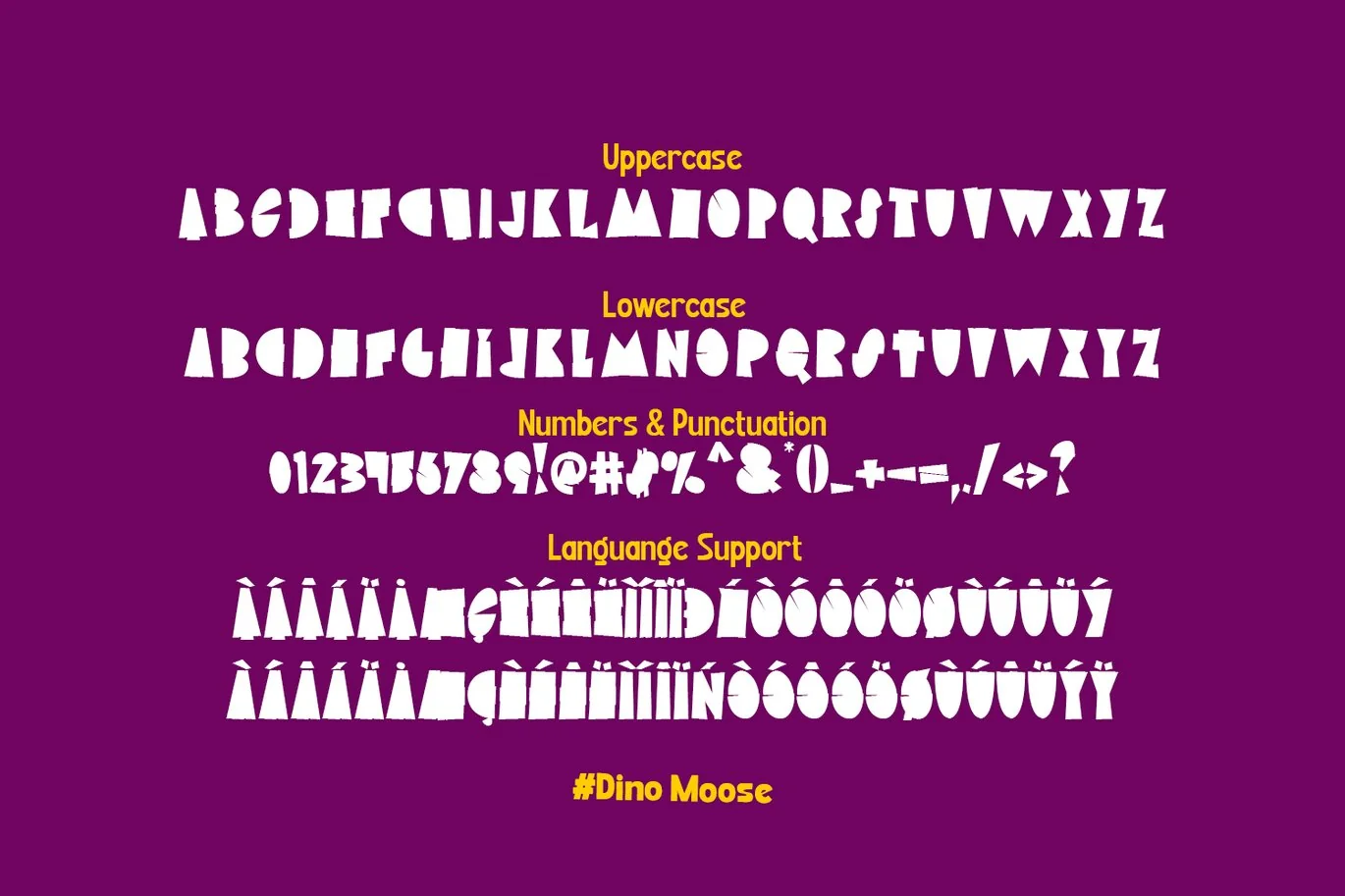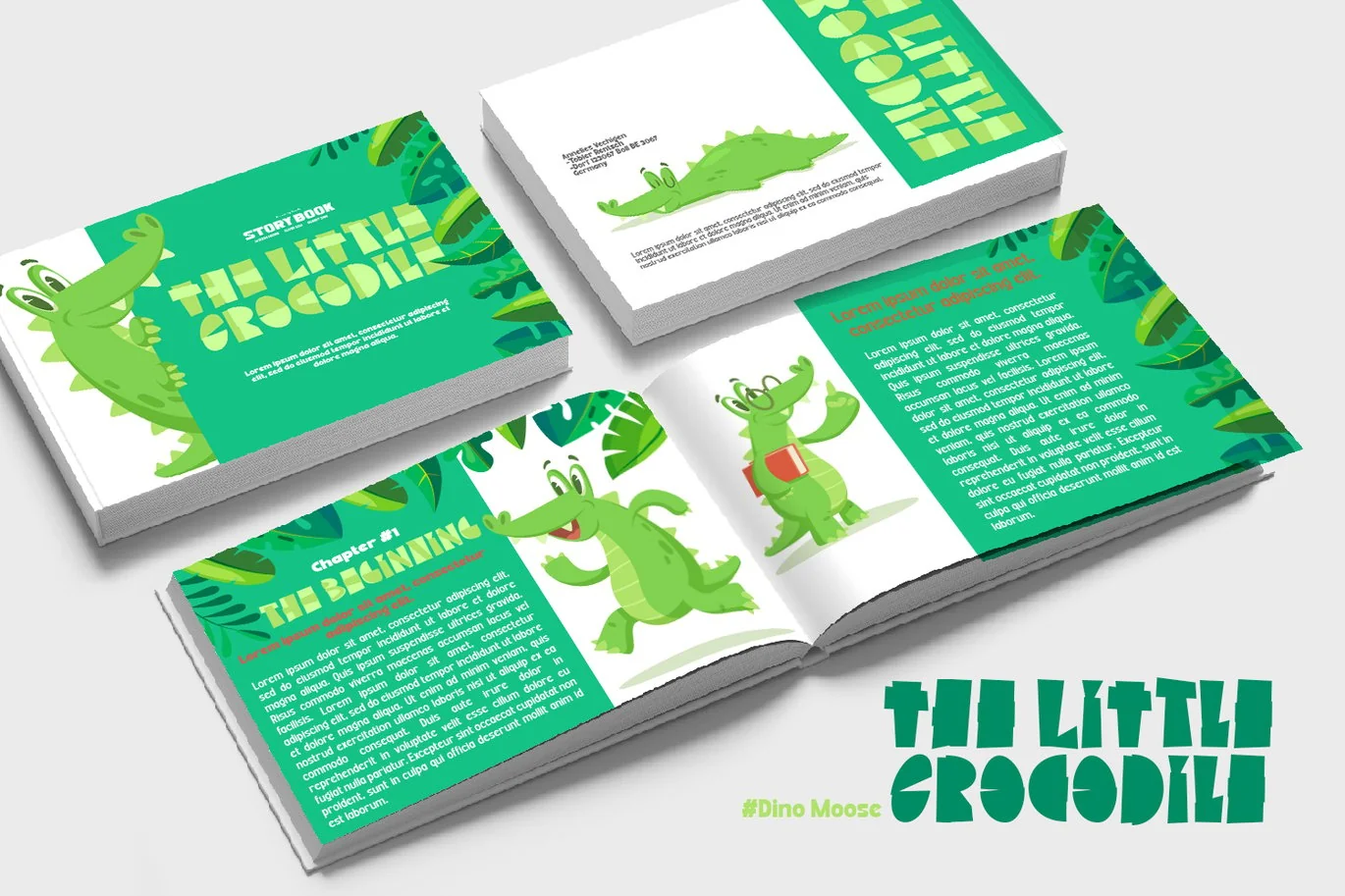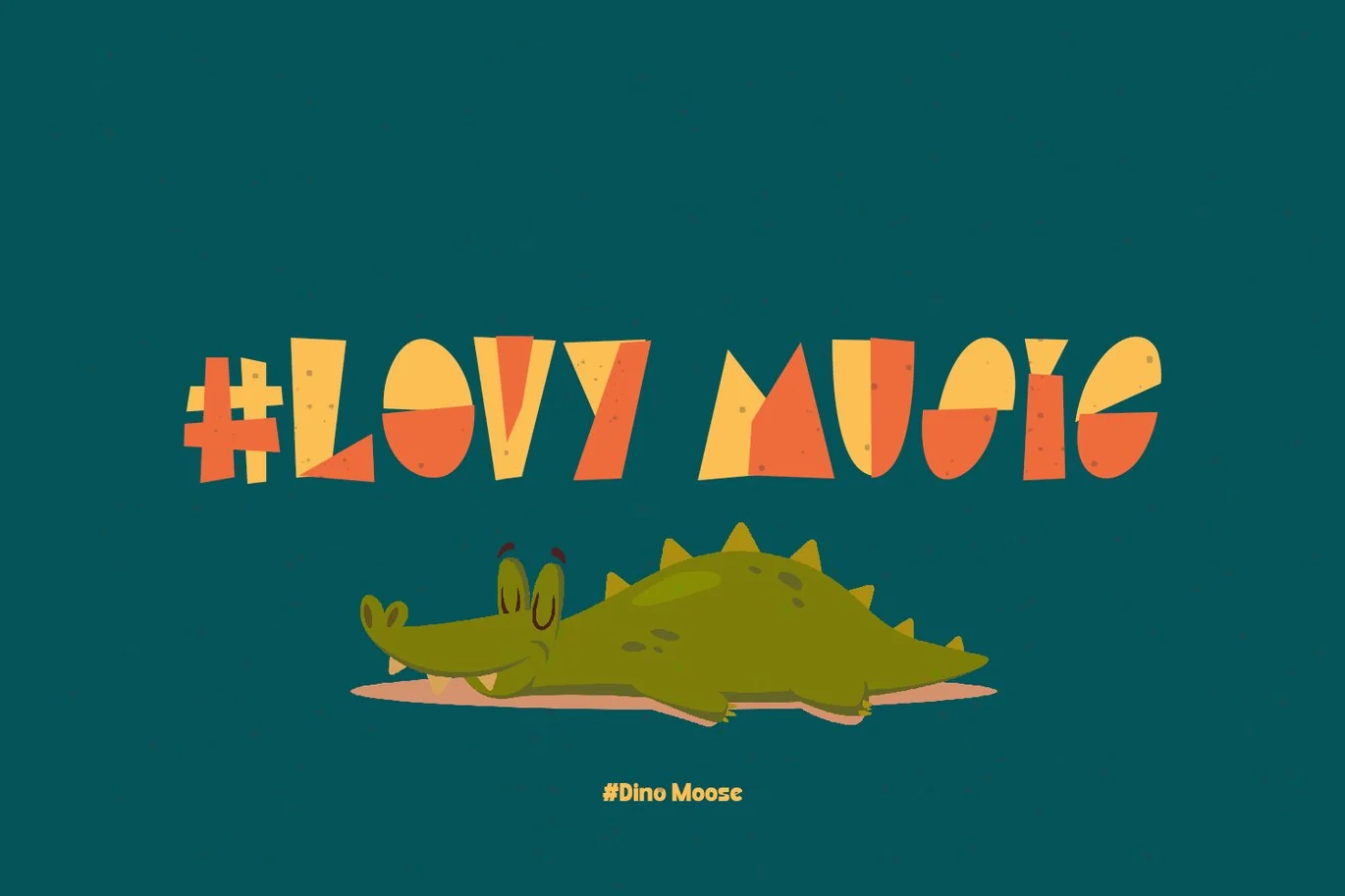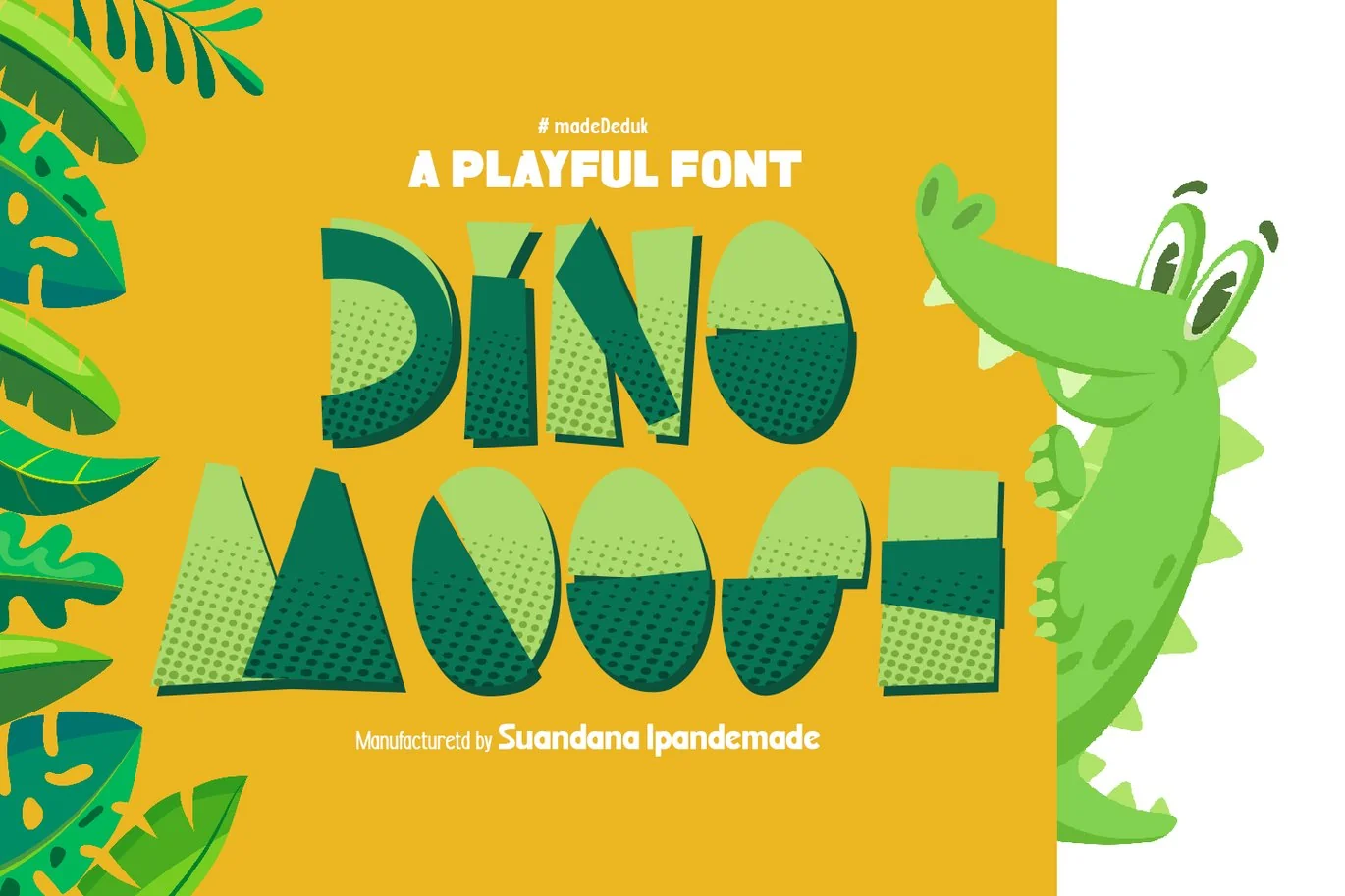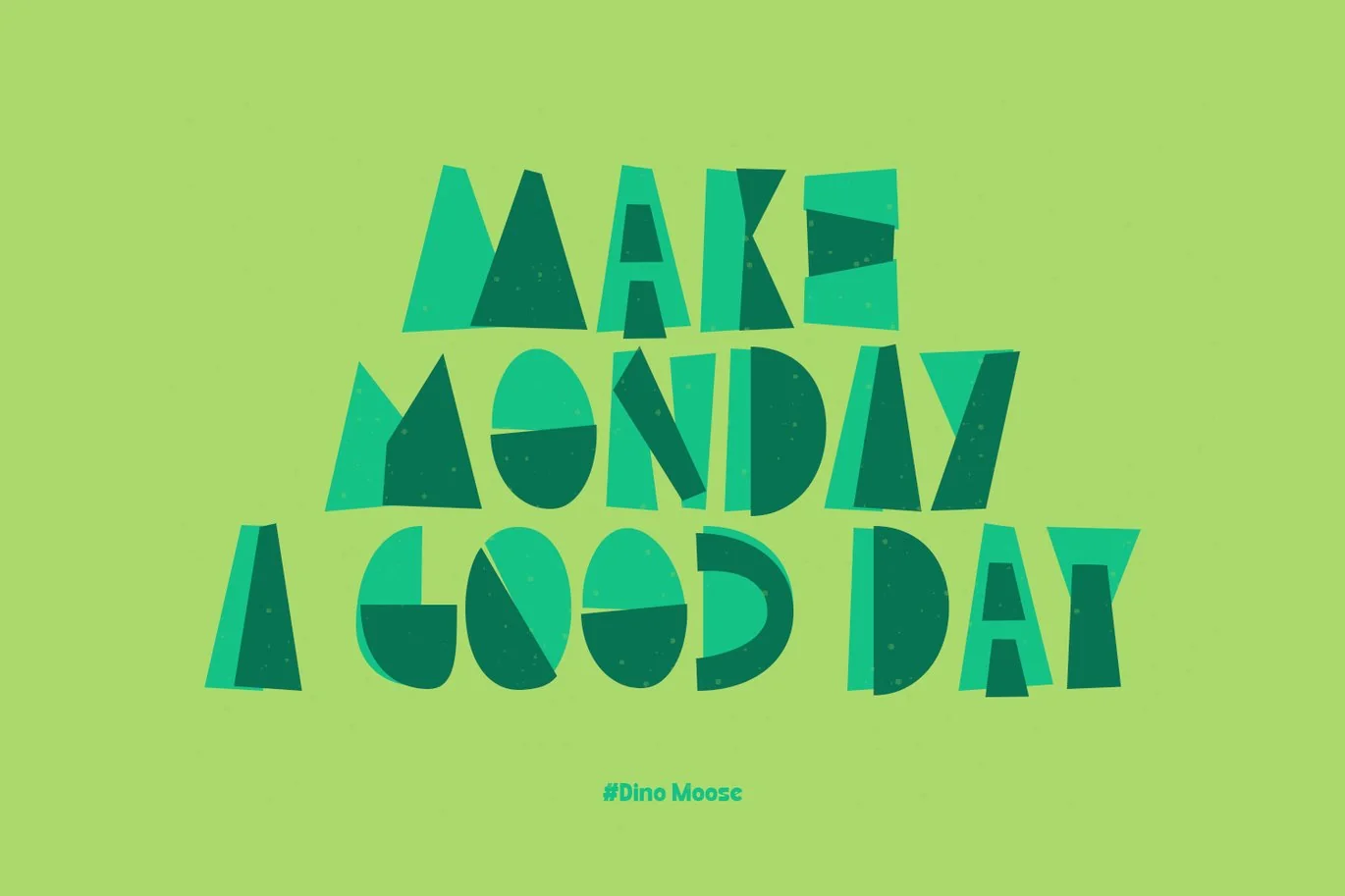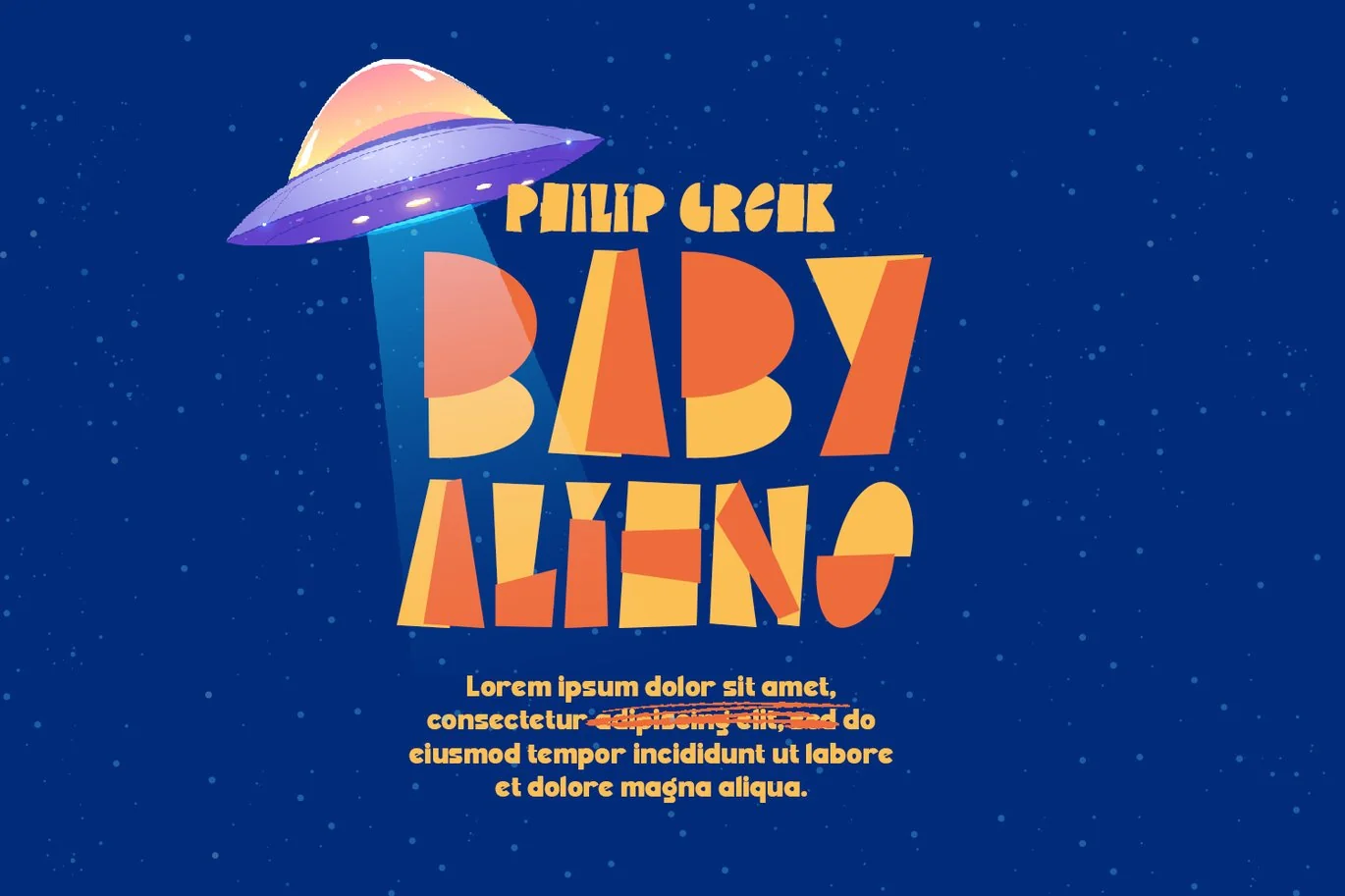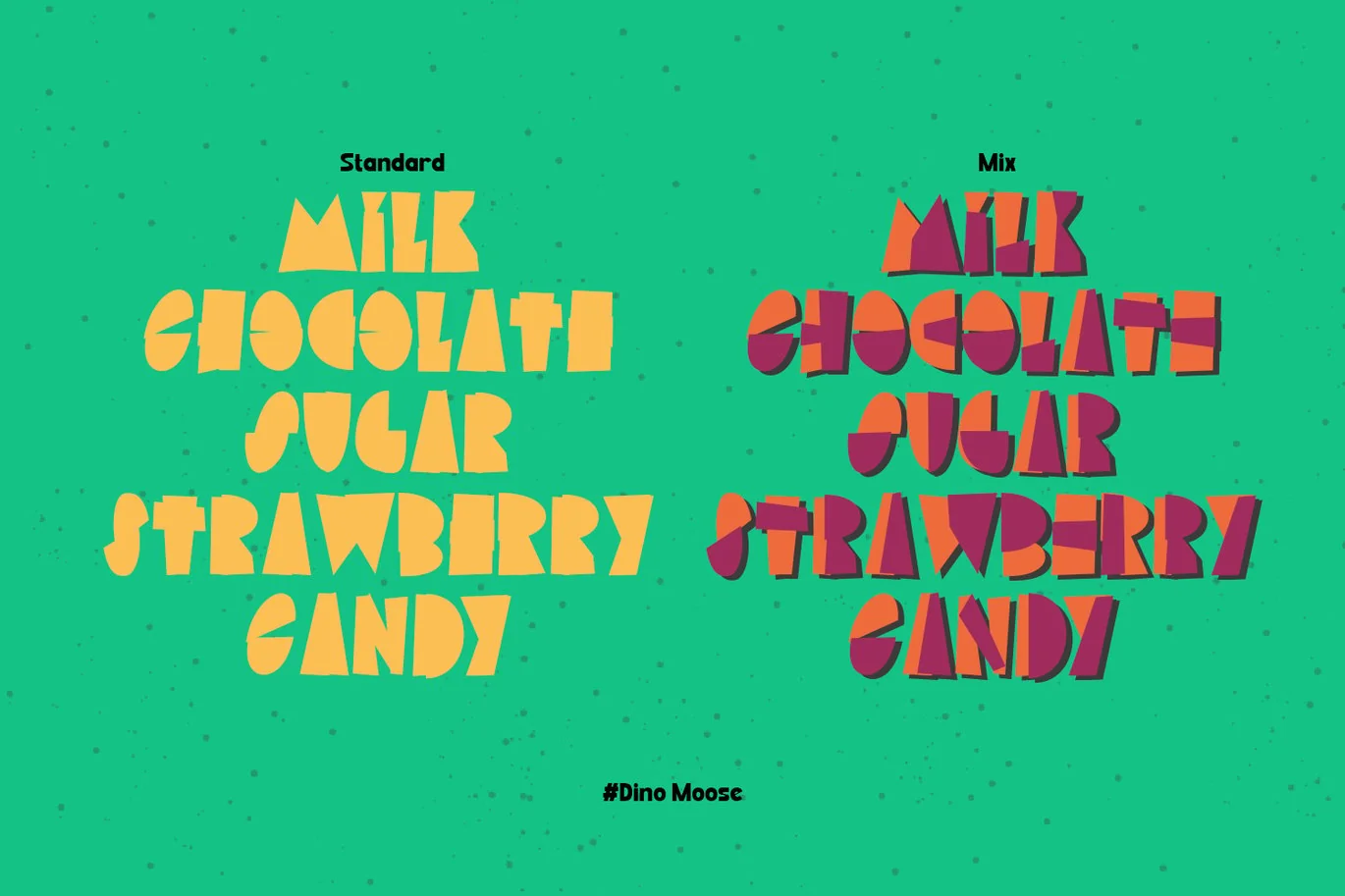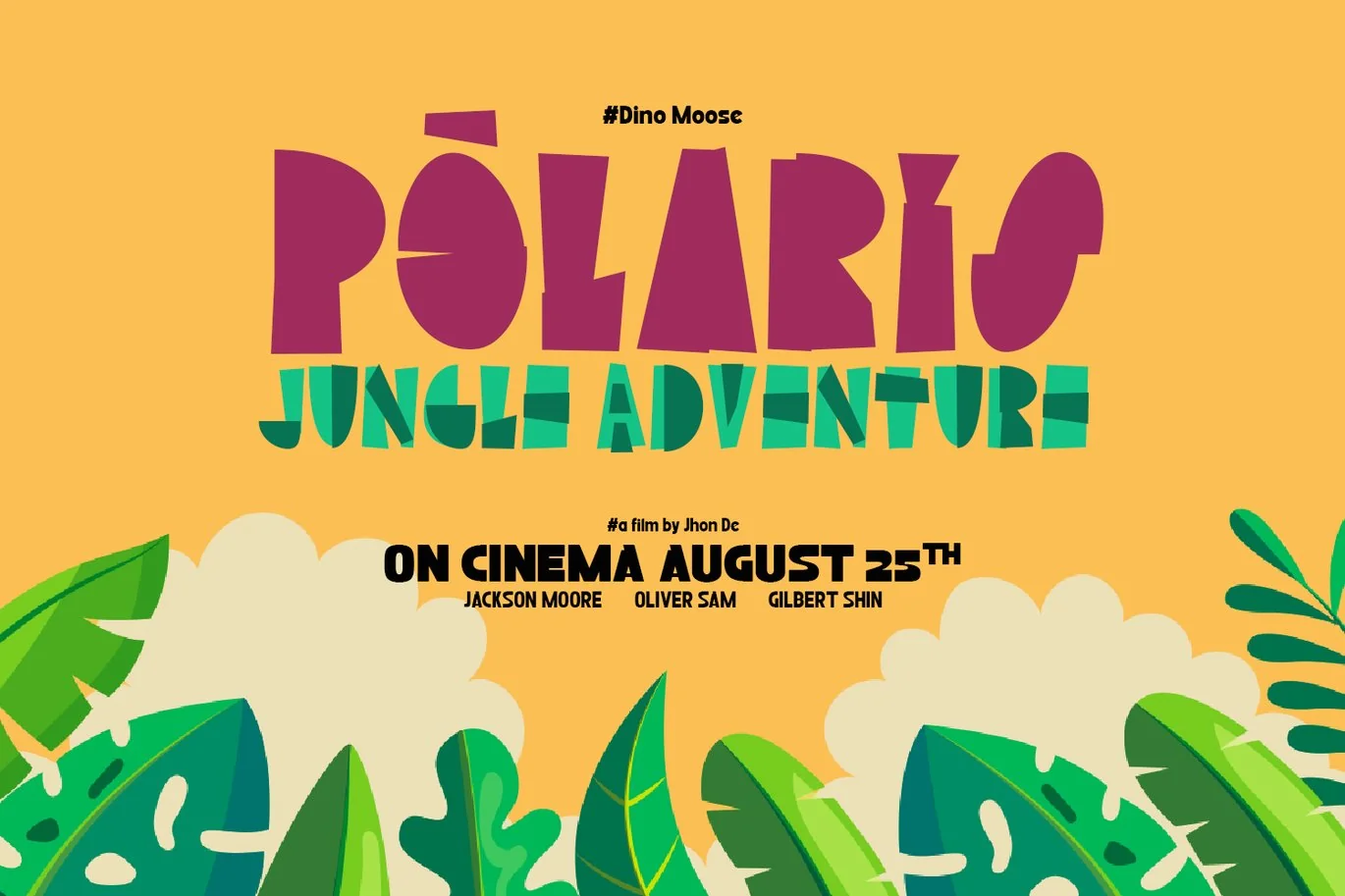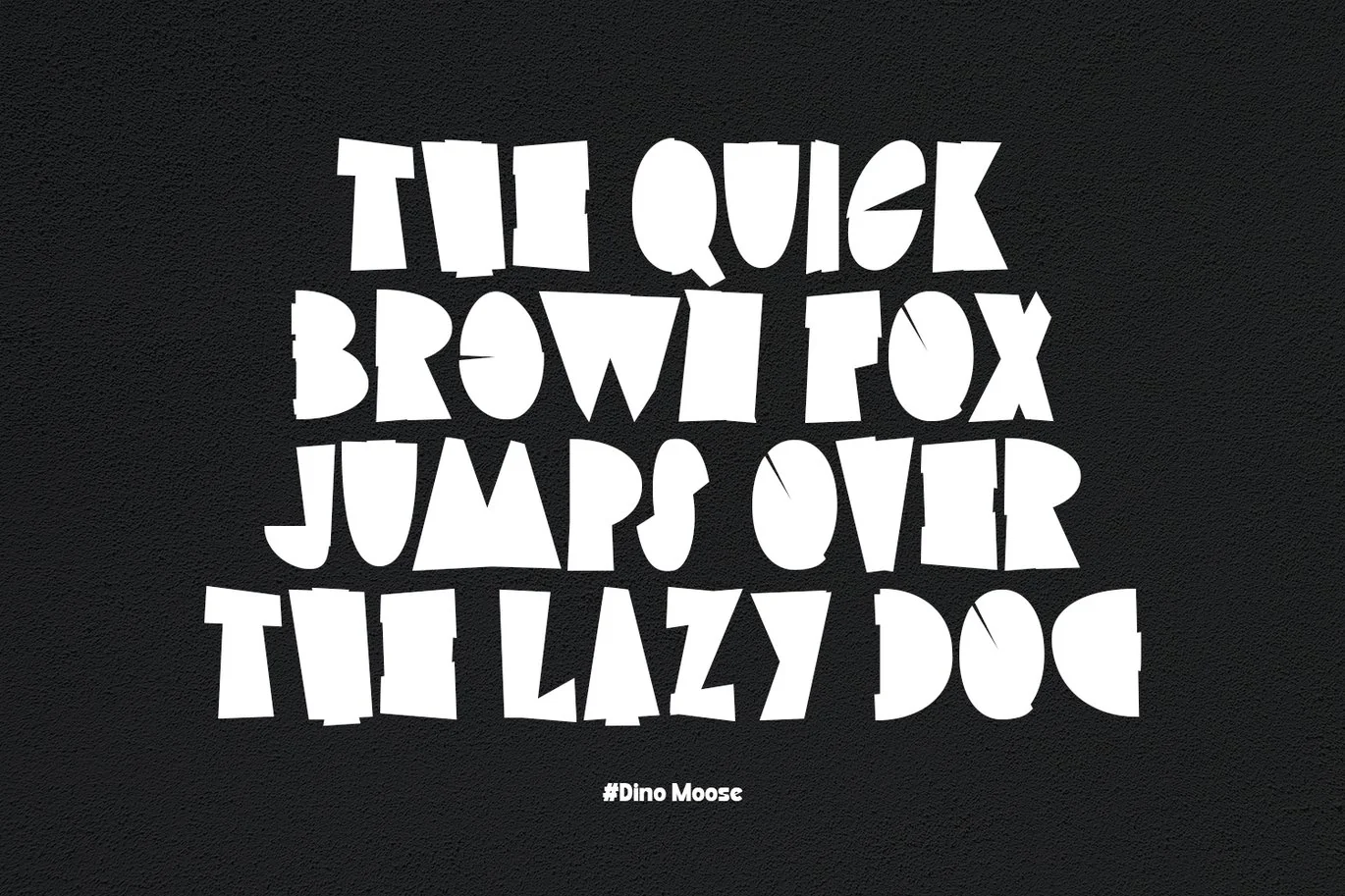
Dino Moose – a Playful Font
Introducing Dino Moose is a playful font and will be perfect for book, title branding, product packaging, invitation, quotes, t-shirt, label, poster, logo etc.
- Number & Symbol
- International Glyphs